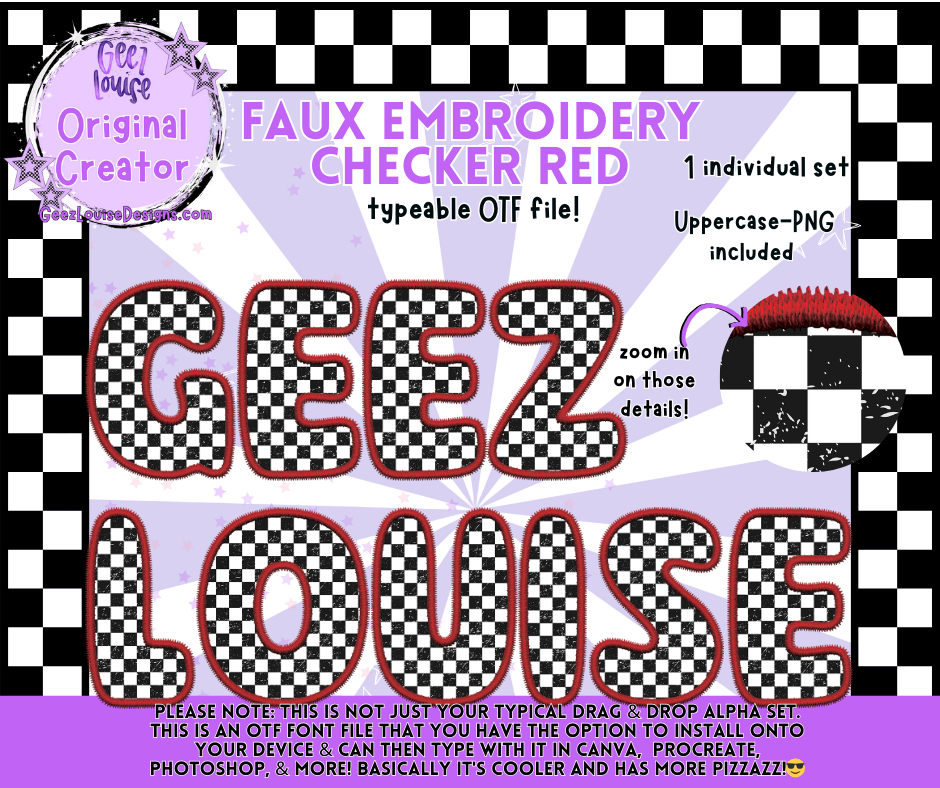
Faux Embroidery Checker Red — Typeable OTF Font + PNG
Checkerboard stitched. Red-thread reckless. This font is loud, layered, and ready to cause problems—in the best way. Designed for creators who want their type to feel embroidered, but without the drag-and-drop drama.
• 1 individual set – Faux embroidery checkerboard with red thread vibes
• Texture-rich, vibe-heavy, and built for weirdos